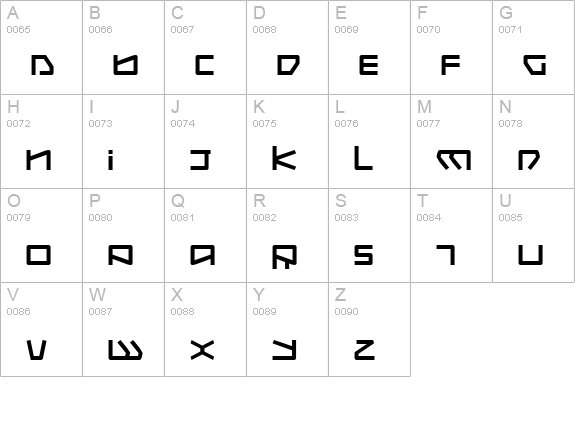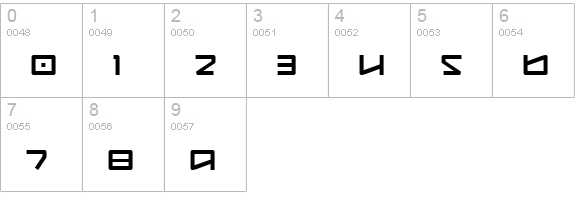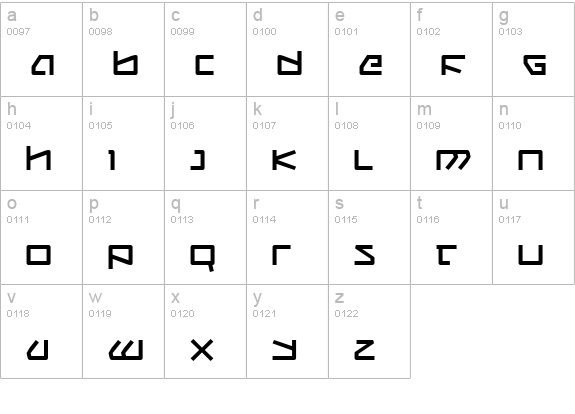
Kobold font is a whimsical and charming typeface that is sure to add a touch of playfulness to any design project. Its quirky and unique letterforms make it perfect for adding a touch of personality to logos, posters, and other creative endeavors. The Kobold font is versatile and can be used for both headers and body text, making it a great choice for a wide range of design applications. Best of all, Kobold font is available for free download at FontsMarket.com. This means you can start using this delightful font in your projects right away without having to worry about any costs. Don't miss out on the opportunity to add a fun and creative element to your designs with the Kobold font - download it today and let your creativity shine!